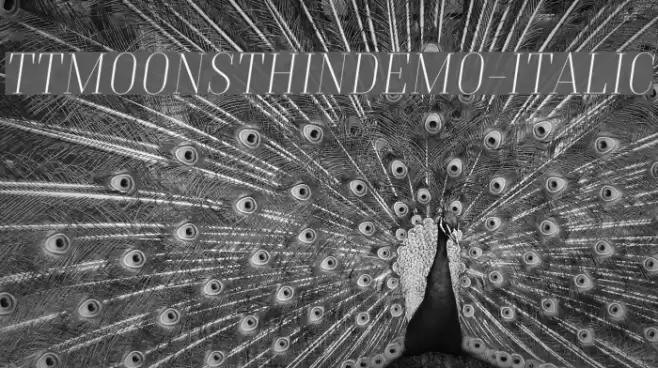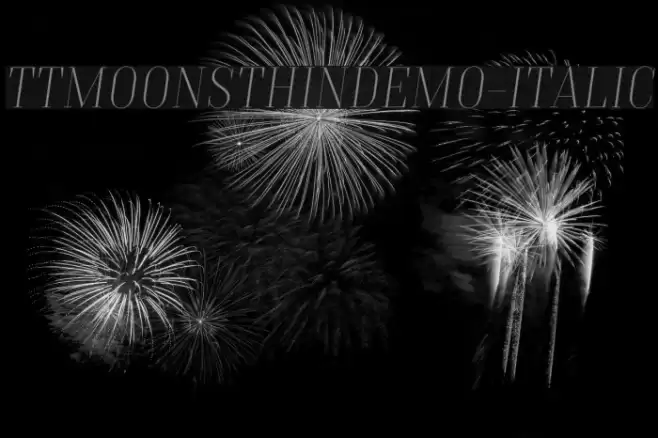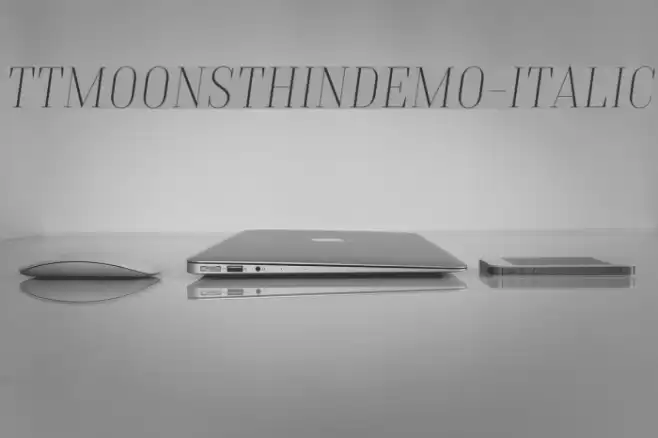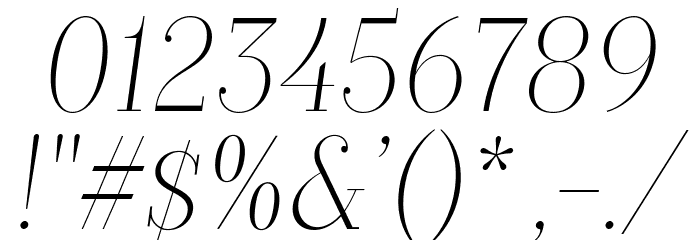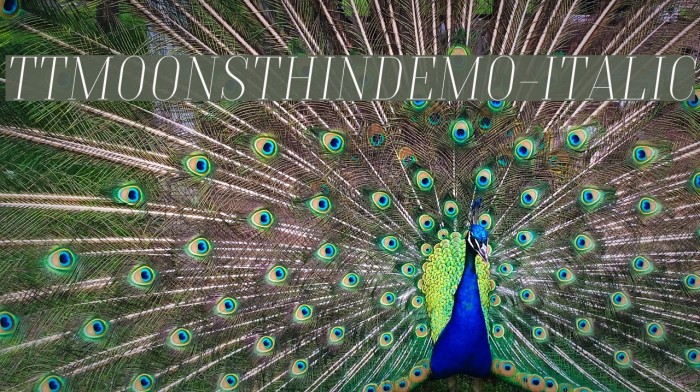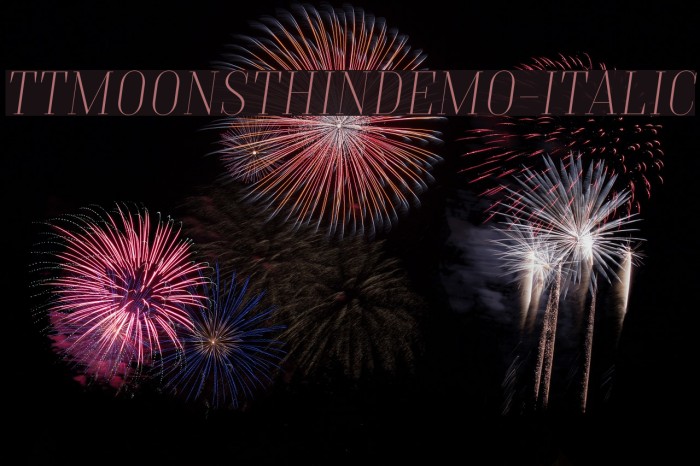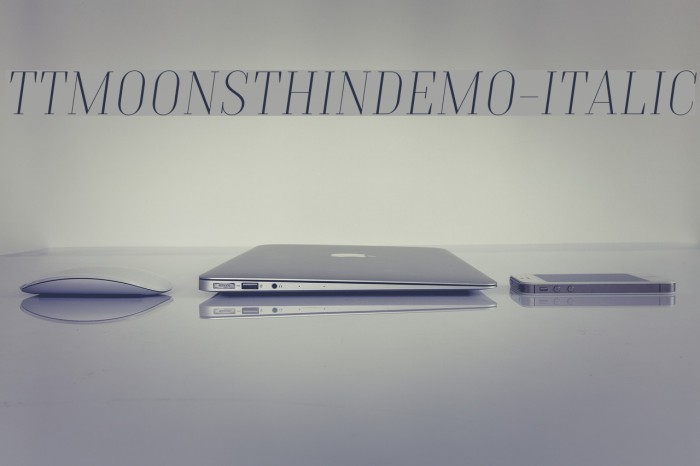
TTMoonsThinDEMO-Italic Font
TTMoonsThinDEMO-Italic Description
This elegant and sophisticated typeface features a thin, italicized style that exudes a sense of modernity and grace. The characters are finely crafted with a high contrast between thick and thin strokes, giving it a refined appearance. The letters are slightly elongated, adding to the sleek and stylish look. The font maintains a consistent slant across all characters, enhancing its italic nature. The numerals are designed with the same attention to detail, ensuring uniformity throughout. Special characters are included, each maintaining the font's overall aesthetic. This typeface is perfect for projects that require a touch of elegance and sophistication.
A thin, italicized typeface with high contrast and elegant style from Uncategorized fonts.
- Proposed Projects: Ideal for luxury branding, fashion magazines, elegant invitations, and high-end product packaging.
- Weight: Light
- Overall Style: Modern, Elegant
- Use Case: Headlines, Logos, Invitations